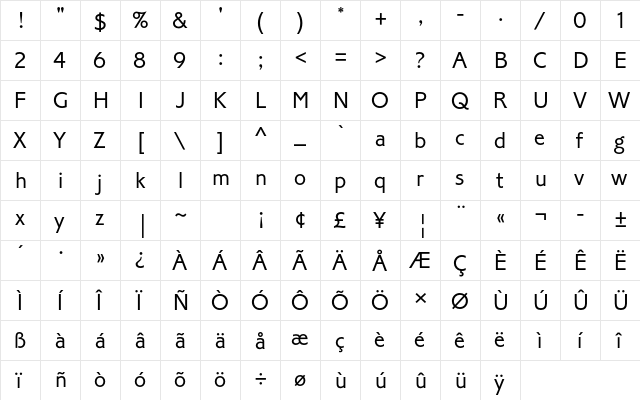
Corinthian Std Light
| Designer | Colin Brignall |
Design Context for Corinthian Std Typeface
Corinthian Std takes a measured approach to typography — its balanced proportions and neutral character make it a reliable workhorse for both digital and print work. The delicate stroke weight brings airiness and refinement to layouts.